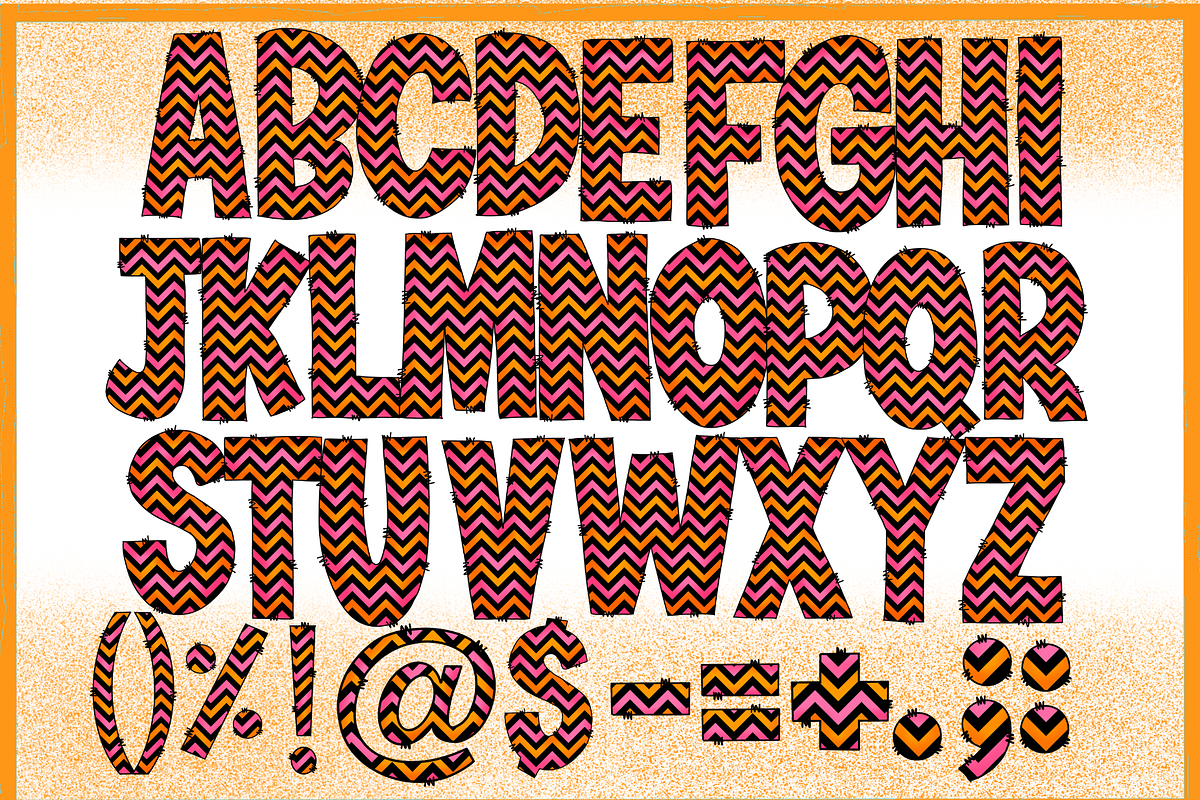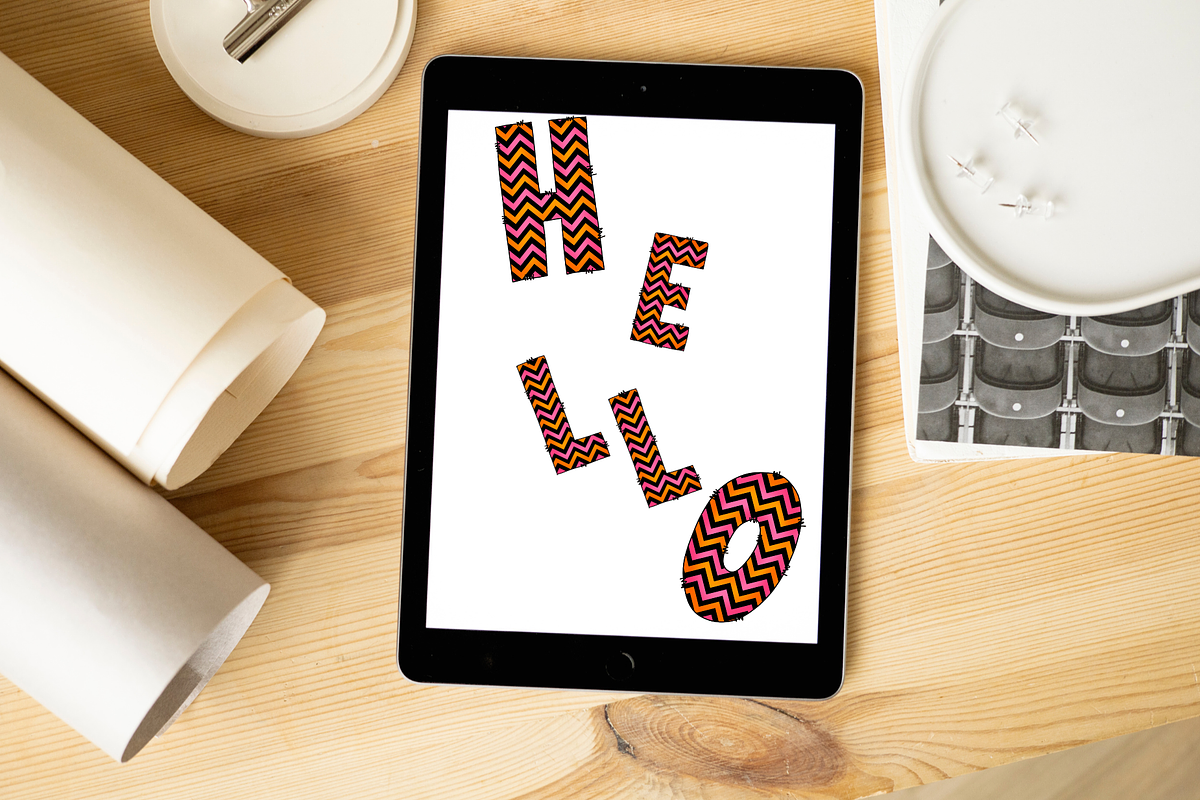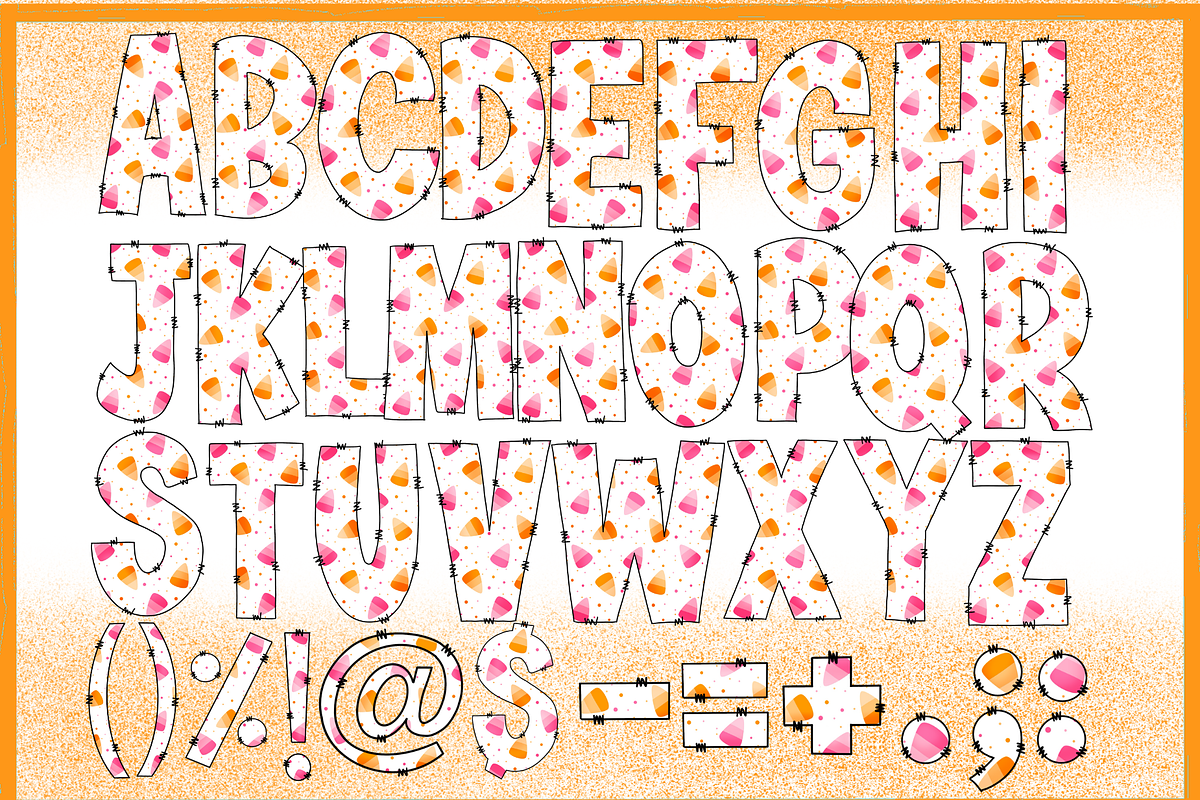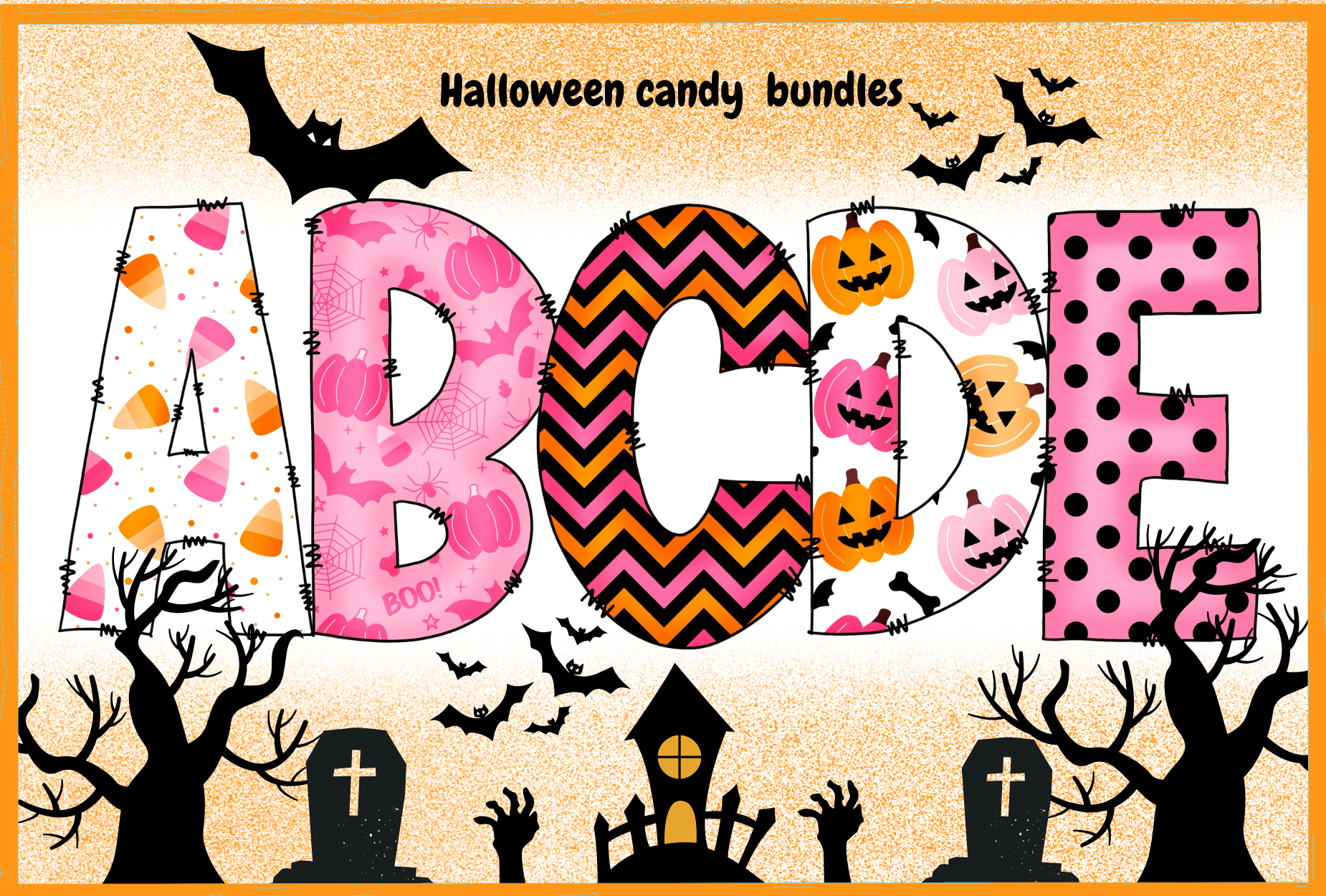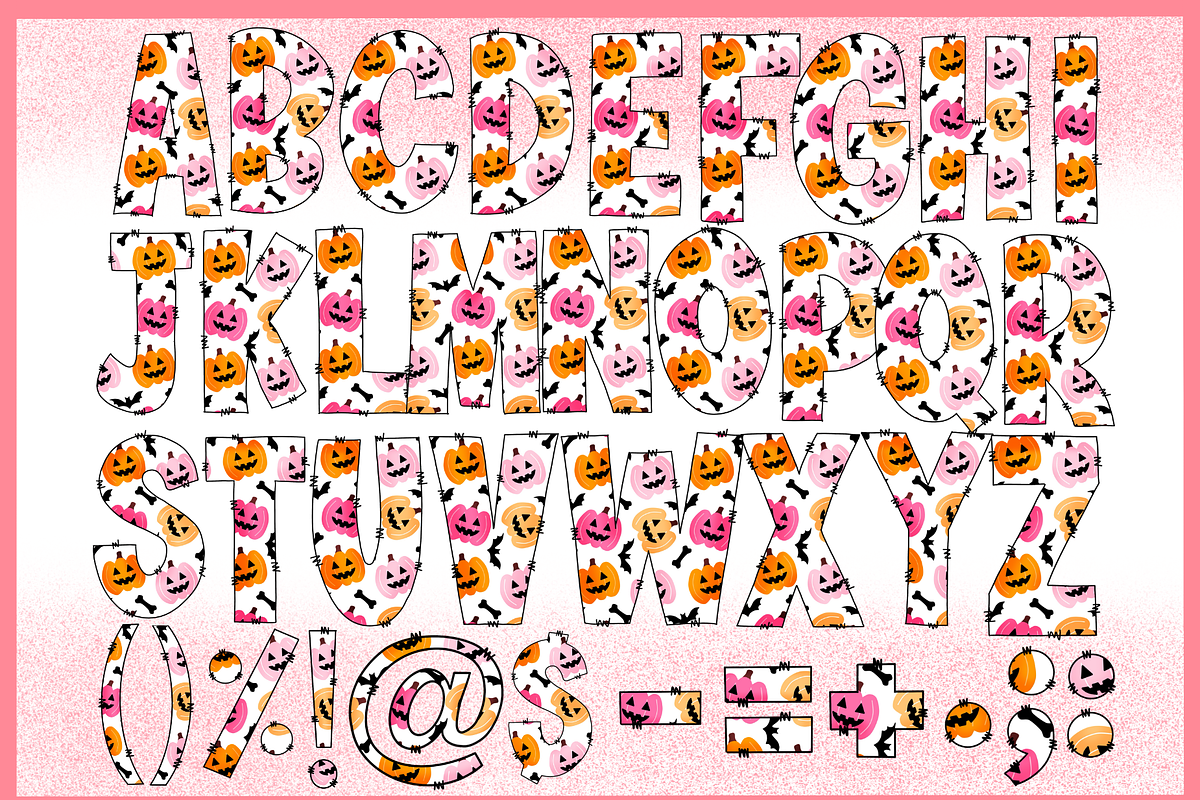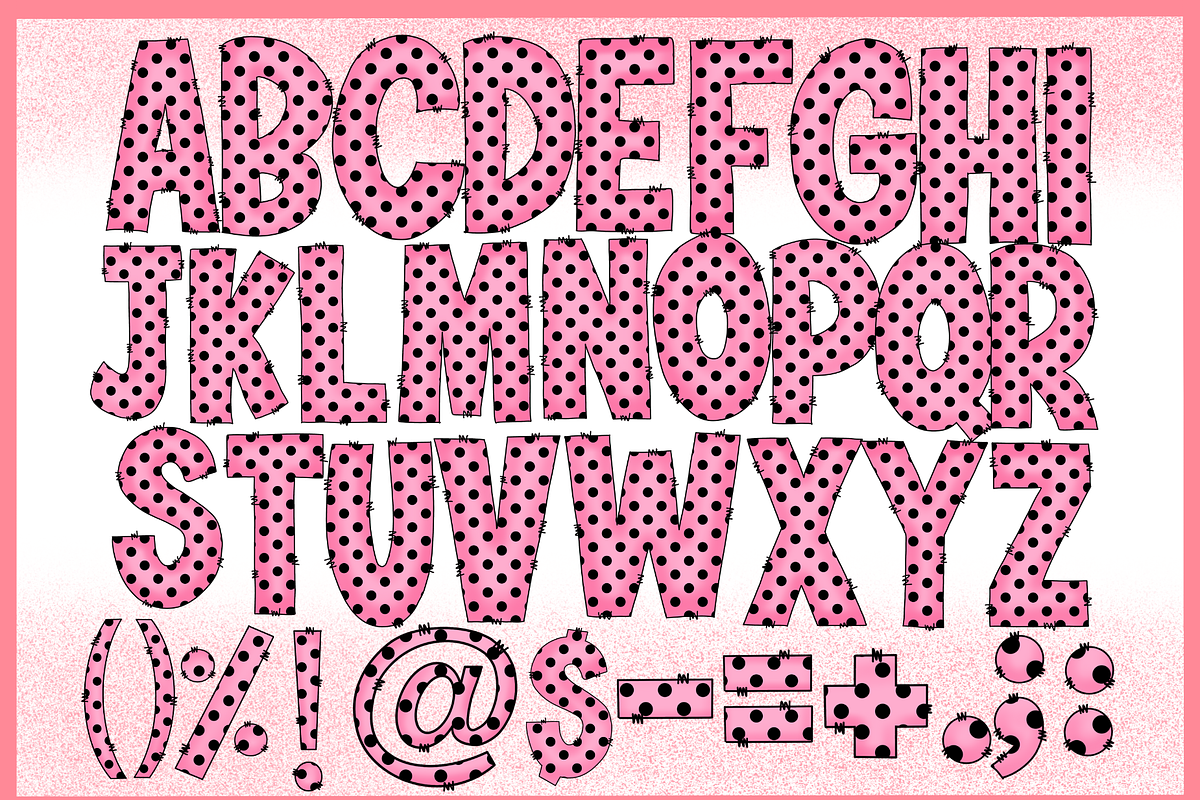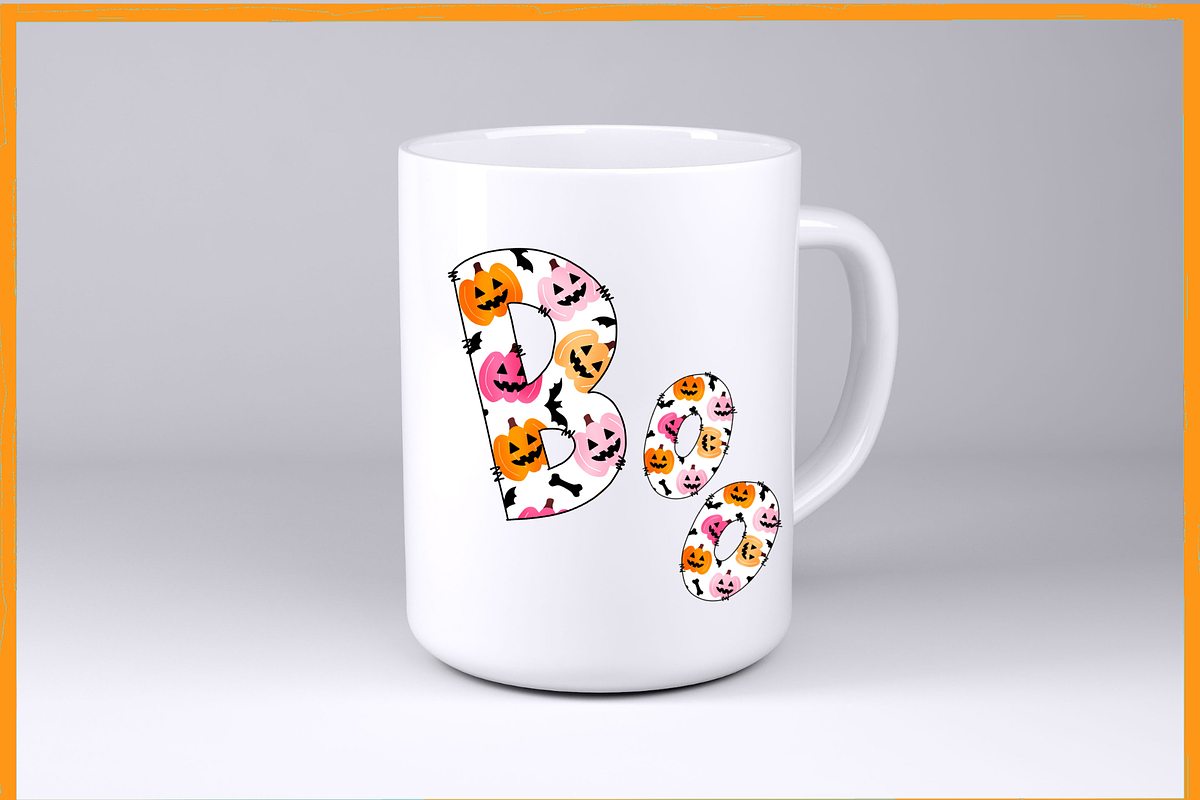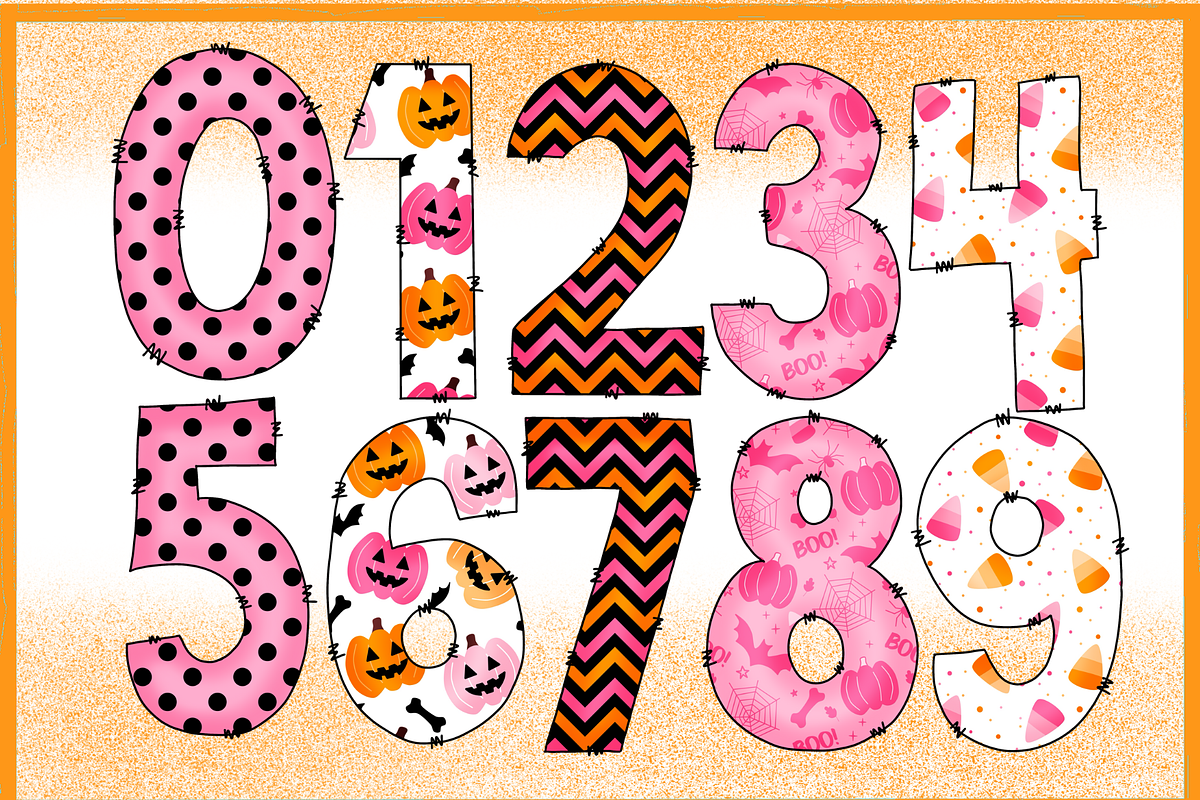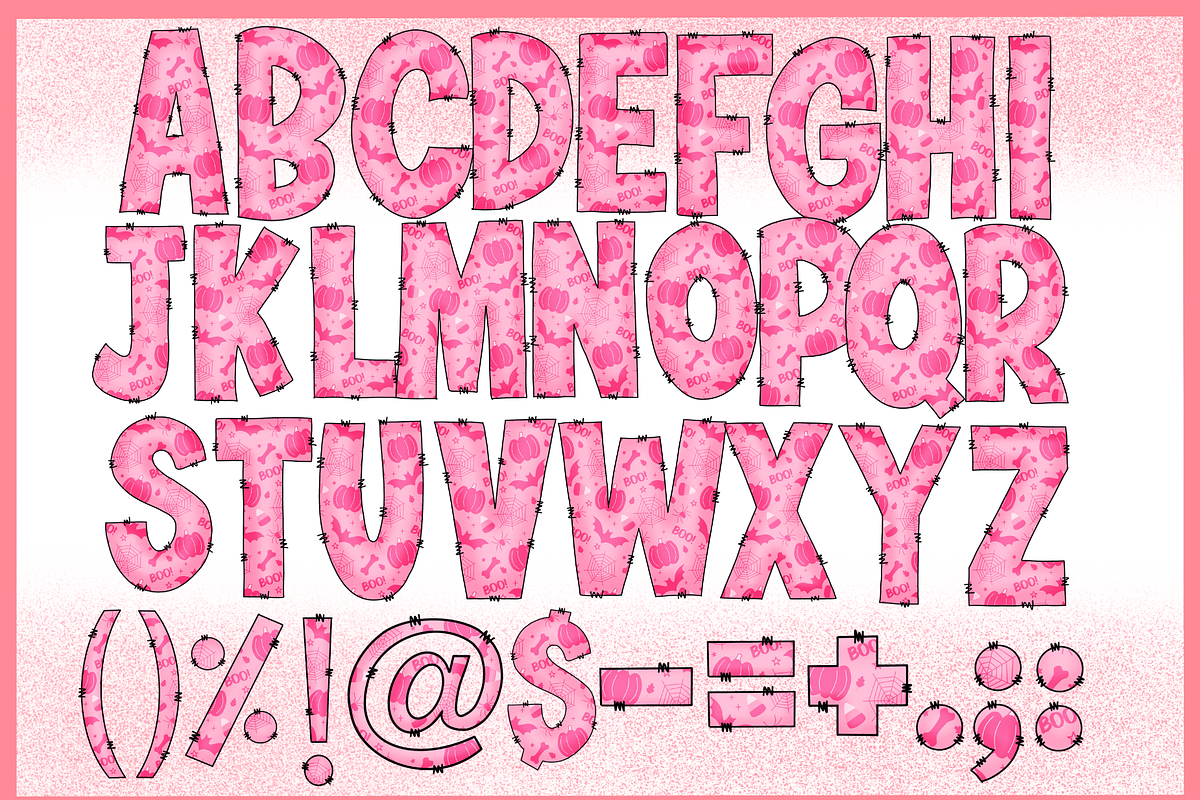
Halloween candy-PNG fonts
Halloween candy FontHere comes the exciting Halloween season—and nothing says festive fun like the Halloween Candy Font Bundle! This adorable, eye-catching alphabet set is packed with charm, color, and spooky sweetness. Designed in a bold, playful style featuring candy corn, pumpkins, polka dots, chevrons, and more, each letter bursts with Halloween personality.